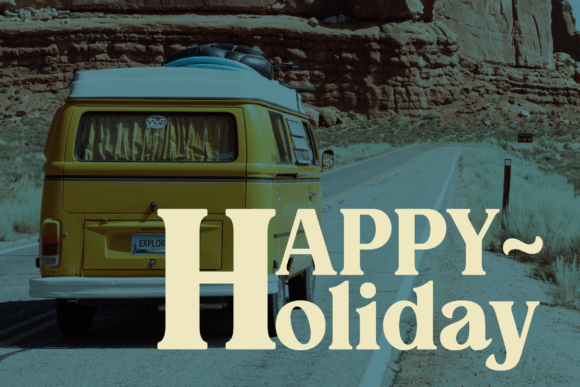
Bunlay Font: A Playfully Nostalgic Serif Font for Your Retro-Inspired Designs
In the world of typography, fonts play a crucial role in bringing creative ideas to life. Among the numerous fonts available, Bunlay Font stands out for its unique vintage aesthetic and playfully nostalgic feel. This beautifully crafted serif font is designed to add a special retro touch to any design idea you can think of. In this article, we’ll explore the features and benefits of Bunlay Font, and how it can elevate your designs to new heights.
The Inspiration Behind Bunlay Font
Bunlay Font is inspired by the classic typography of the past, with a modern twist. Its creators aimed to bring back the nostalgia of vintage designs, while making it suitable for contemporary use. The result is a font that exudes a sense of playfulness and sophistication, making it perfect for a wide range of design projects.
Key Features of Bunlay Font
- Vintage Aesthetic: Bunlay Font boasts a unique vintage look that is sure to grab attention. Its serif design and classic lines evoke a sense of nostalgia, making it perfect for retro-inspired designs.
- PUA Encoded: This font is PUA (Private Use Area) encoded, which means you can access all the glyphs and swashes with ease. This feature makes it easy to use and customize, even for those without extensive design experience.
- Playfully Nostalgic: Bunlay Font has a playful and nostalgic feel that makes it perfect for designs that require a touch of whimsy. Whether you’re creating a logo, brochure, or website, this font is sure to bring a smile to your audience’s faces.
- Masterfully Designed: The creators of Bunlay Font have masterfully designed it to become a true favorite among designers. Its high-quality design ensures that it will stand out in any design project.
Benefits of Using Bunlay Font
So, why should you choose Bunlay Font for your design projects? Here are just a few benefits of using this amazing font:
- Adds a Retro Touch: Bunlay Font is perfect for adding a retro touch to any design idea. Its vintage aesthetic and playfully nostalgic feel make it ideal for designs that require a unique and eye-catching look.
- Easy to Use: With its PUA encoding, Bunlay Font is easy to use and customize, even for those without extensive design experience. You can access all the glyphs and swashes with ease, making it simple to create stunning designs.
- Elevates Creative Ideas: Bunlay Font has the potential to bring each of your creative ideas to the highest level. Its high-quality design and unique aesthetic make it perfect for a wide range of design projects, from logos and brochures to websites and more.
How to Use Bunlay Font in Your Designs
Using Bunlay Font in your designs is easy and straightforward. Here are a few tips to get you started:
- Pair it with Other Fonts: Bunlay Font pairs well with other fonts, making it easy to create stunning combinations. Experiment with different font pairings to find the perfect look for your design.
- Use it for Headings and Titles: Bunlay Font is perfect for headings and titles, where its vintage aesthetic and playfully nostalgic feel can really shine.
- Customize it to Your Liking: With its PUA encoding, you can customize Bunlay Font to your liking. Access all the glyphs and swashes to create a unique look that reflects your brand or design style.
In conclusion, Bunlay Font is a playfully nostalgic serif font that delivers an incredible vintage aesthetic. Its masterful design and PUA encoding make it easy to use and customize, while its unique look and feel make it perfect for a wide range of design projects. Whether you’re looking to add a retro touch to your designs or simply want to create something truly unique, Bunlay Font is an excellent choice.
- What is Bunlay Font? Bunlay Font is a playfully nostalgic serif font with a unique vintage aesthetic.
- Is Bunlay Font easy to use? Yes, Bunlay Font is easy to use and customize, thanks to its PUA encoding.
- What types of designs is Bunlay Font suitable for? Bunlay Font is perfect for a wide range of design projects, including logos, brochures, websites, and more.